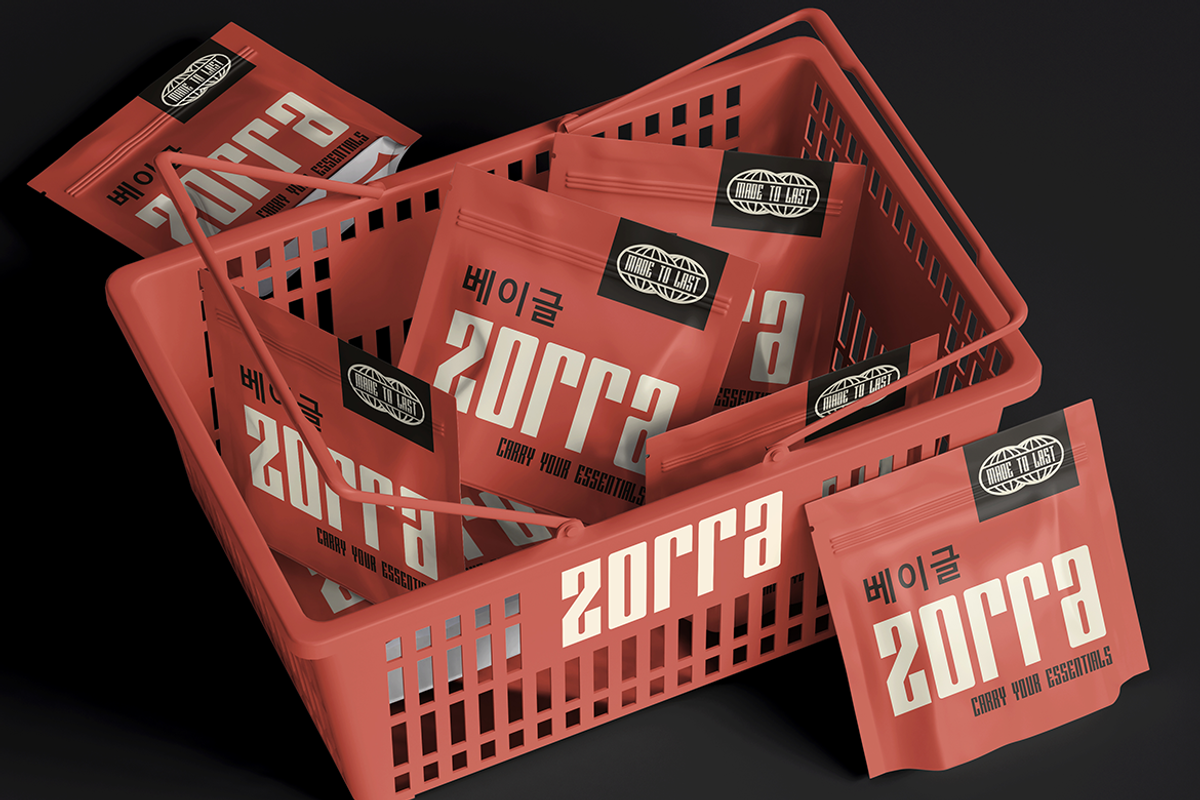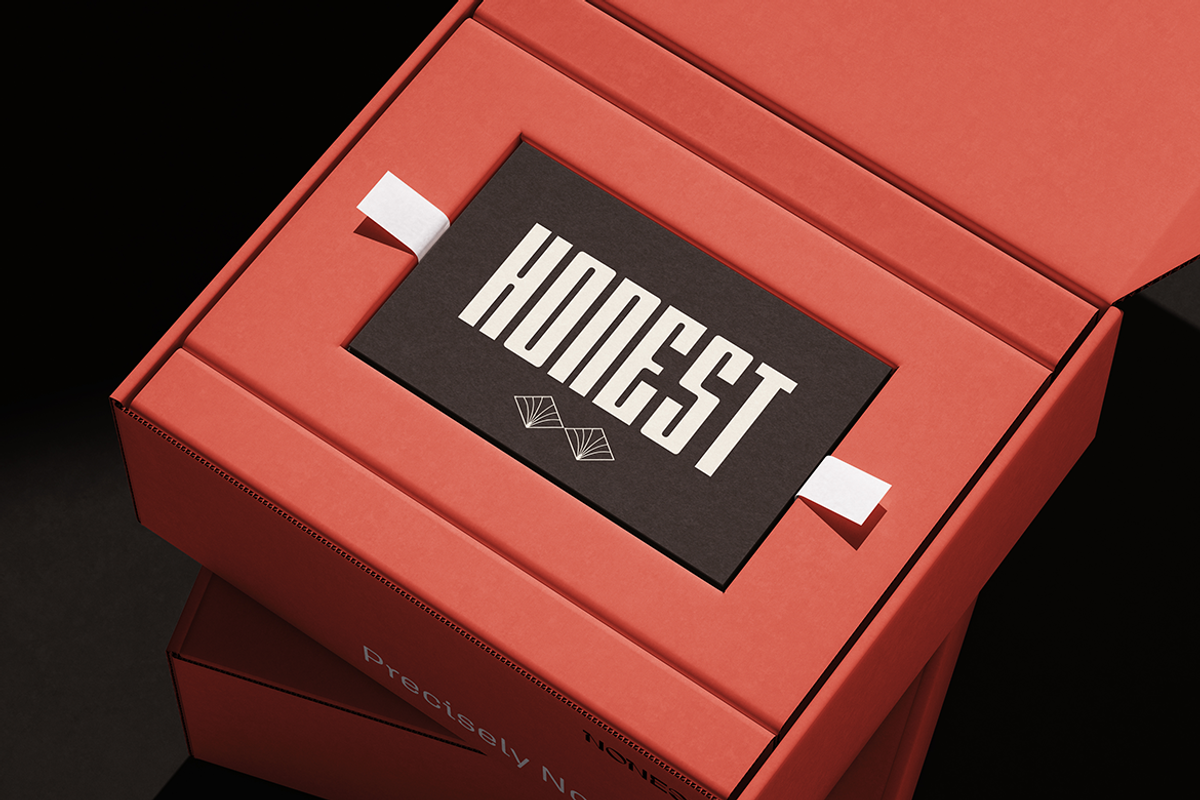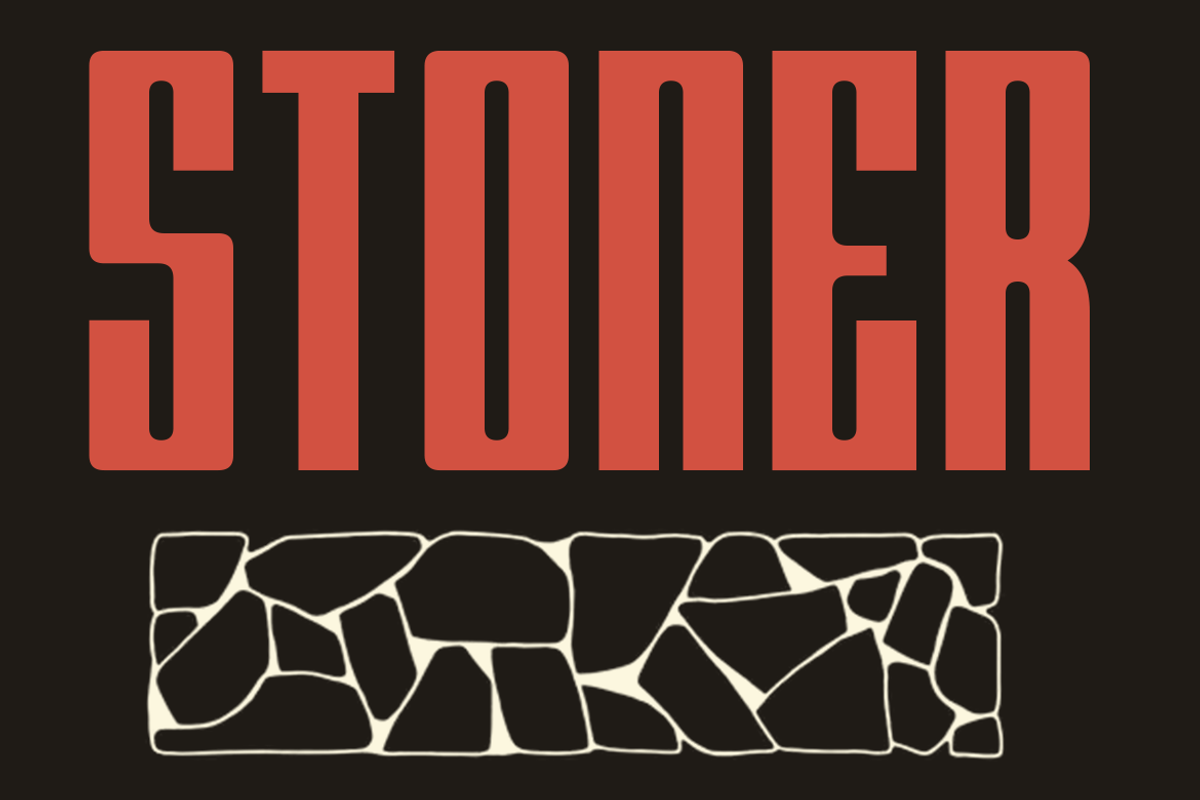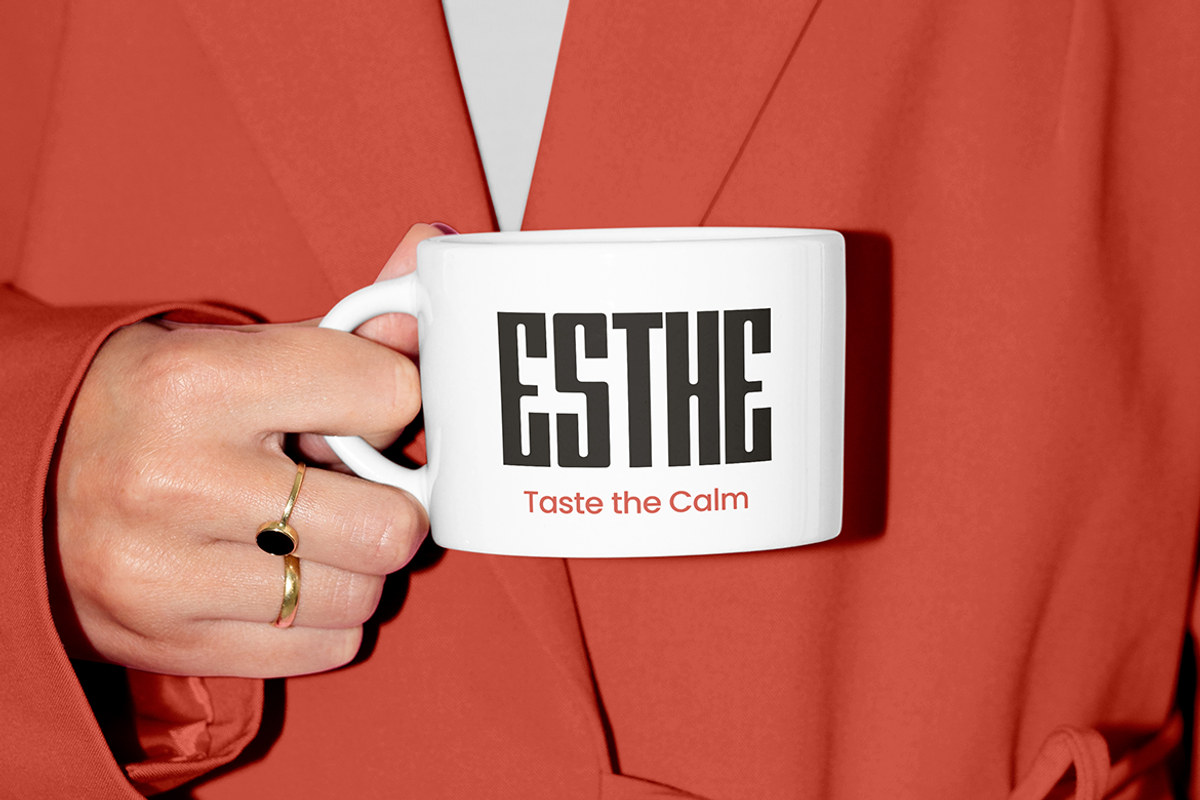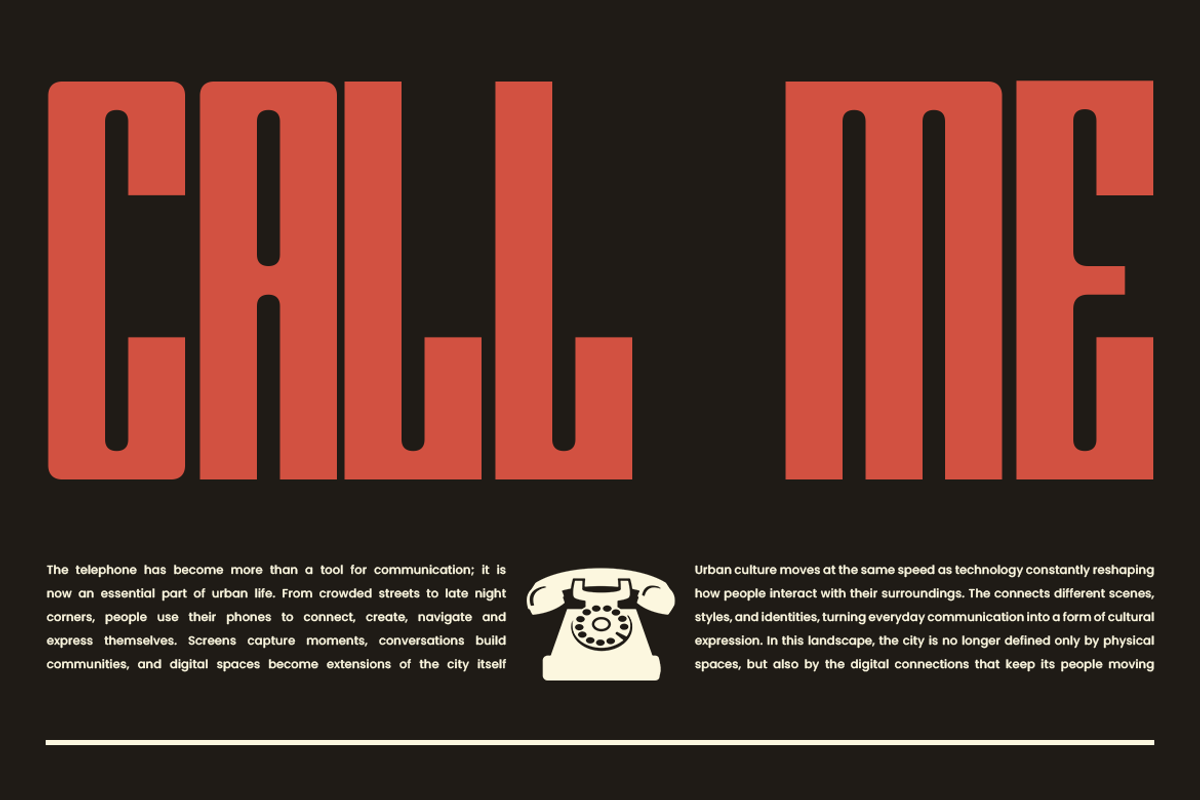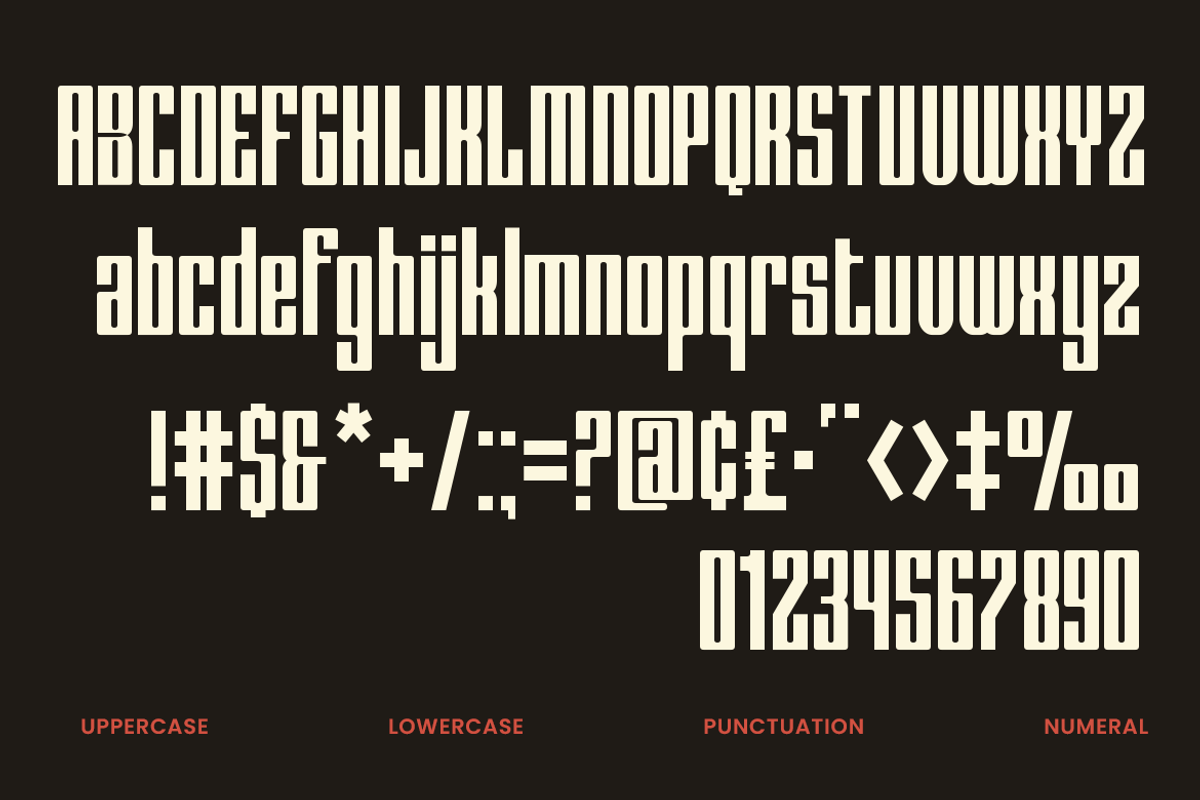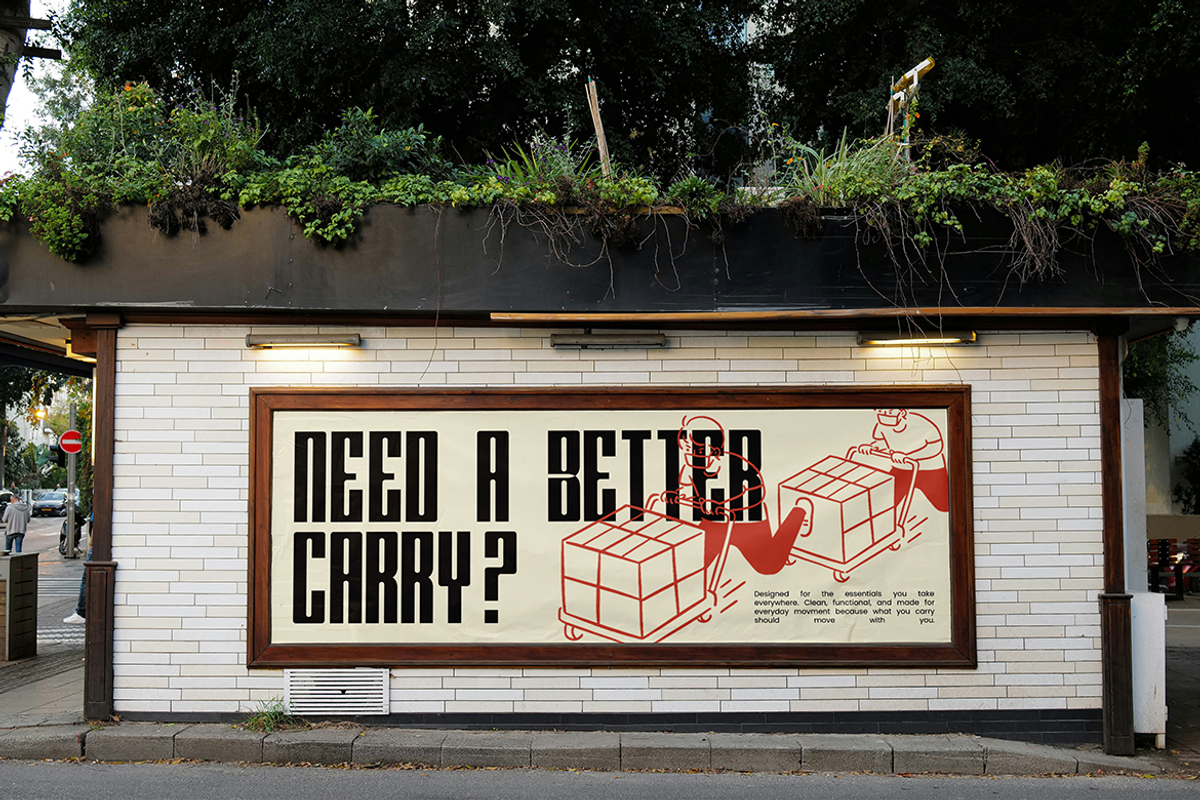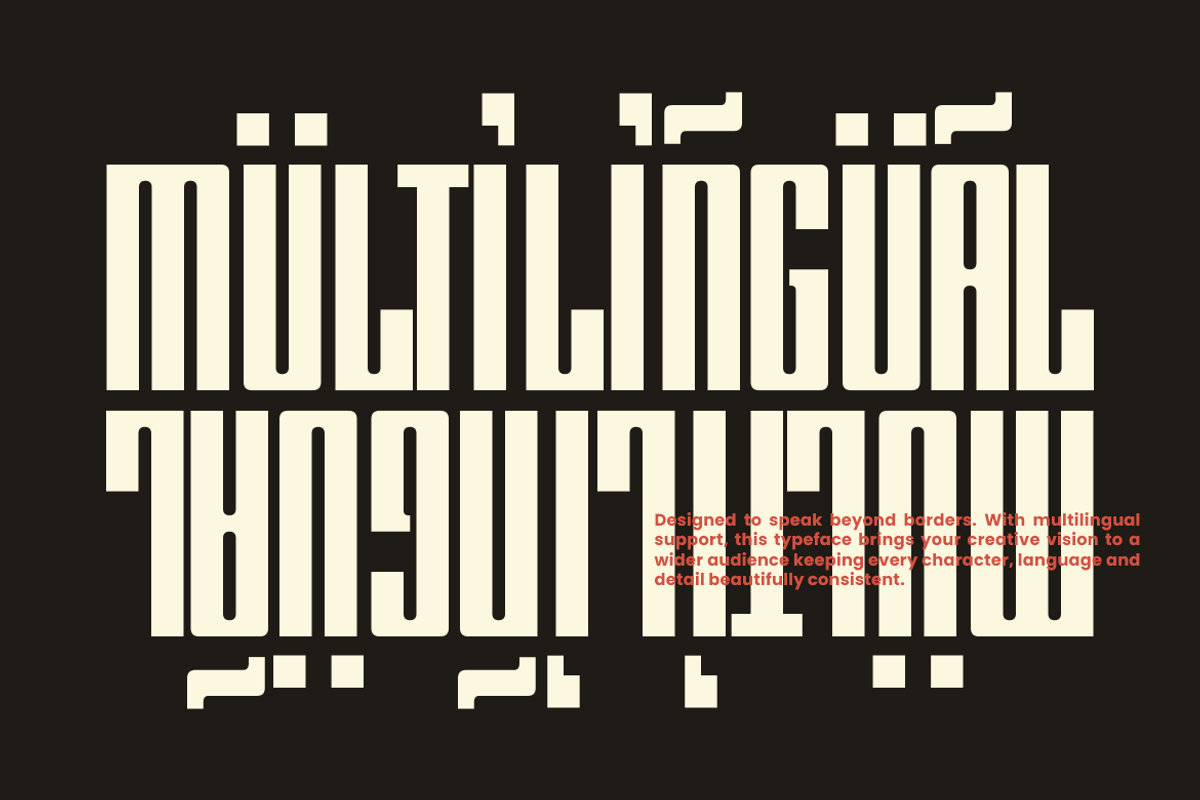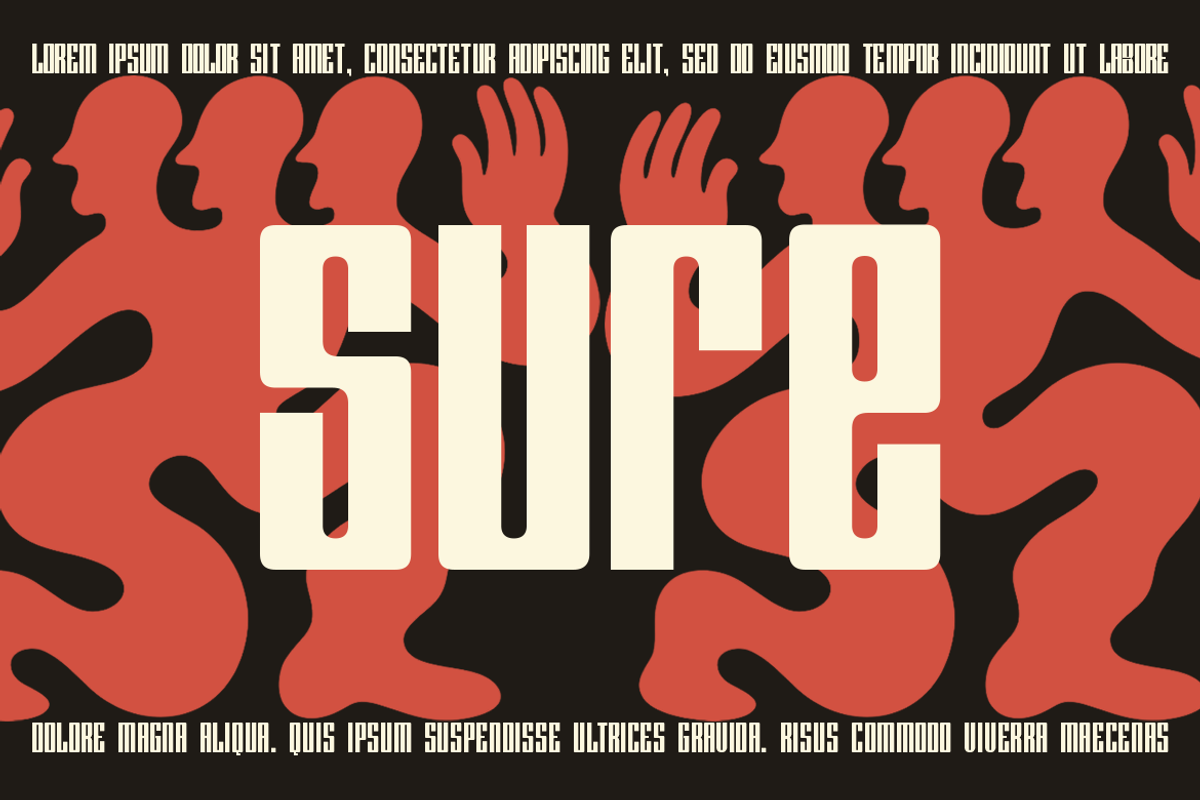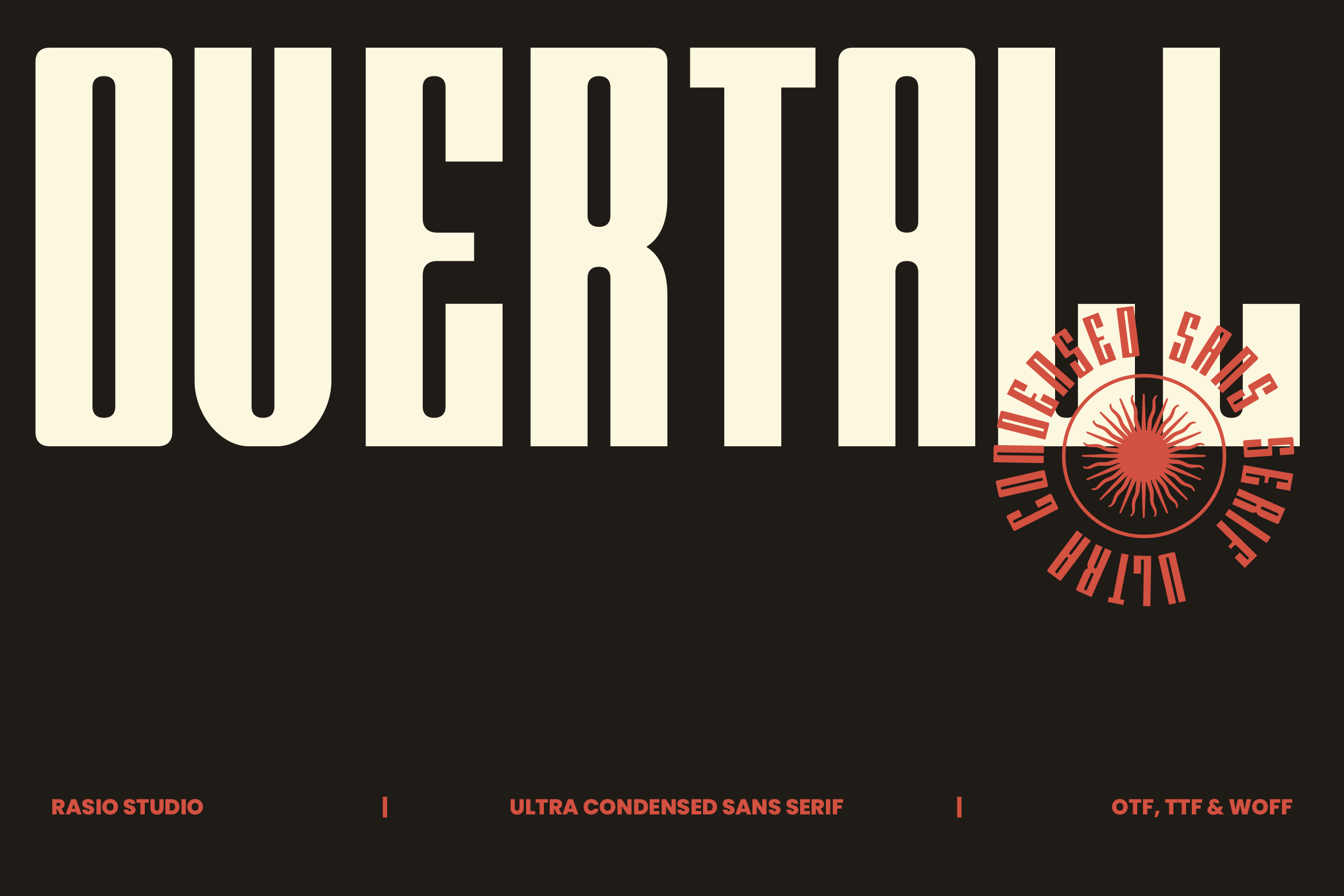
Overtall Ultra Condensed Sans Font
Overtall Ultra Condensed Sans Font is an ultra condensed sans serif typeface built around exceptionally tall, narrow letterforms and a tightly controlled geometric structure. The uppercase characters have a strong vertical presence with compact horizontal proportions, allowing long words to occupy less width while still creating a bold visual statement. The lowercase set maintains the same narrow construction, while the numerals and punctuation extend the system for more complete typographic layouts. The consistent stroke weight and squared, structured forms give the typeface a clean, contemporary appearance that feels particularly strong when used at large sizes.
The font is designed primarily for display typography rather than long body copy. Use Overtall for large headlines, poster titles, magazine covers, fashion graphics, branding, packaging, album artwork, event identities, and advertising where the typography needs to dominate the composition. Its narrow width is especially useful for fitting long words into restricted spaces, creating stacked headlines, or arranging several lines of large text without making the layout feel overcrowded. The dramatic height also makes it effective for tall text compositions, narrow columns, architectural layouts, and bold typographic branding where vertical rhythm is an important part of the visual design.
Ultra-condensed structure with exceptionally tall and narrow proportions
Heavy geometric letterforms designed for strong visual impact
Extended vertical strokes create a bold, towering appearance
Tight character width allows long words to fit into compact layouts
Strong rectangular construction with sharp, controlled corners and terminals
Sports and streetwear branding for bold, high-impact visual identities
Posters and campaign graphics where condensed lettering creates strong headlines
Editorial layouts for magazine covers, titles, and attention-grabbing typography
Packaging and labels that need a compact, distinctive typographic style
Logo and merchandise designs including wordmarks, apparel, stickers.
Supports numerals, punctuation, and extensive symbol set